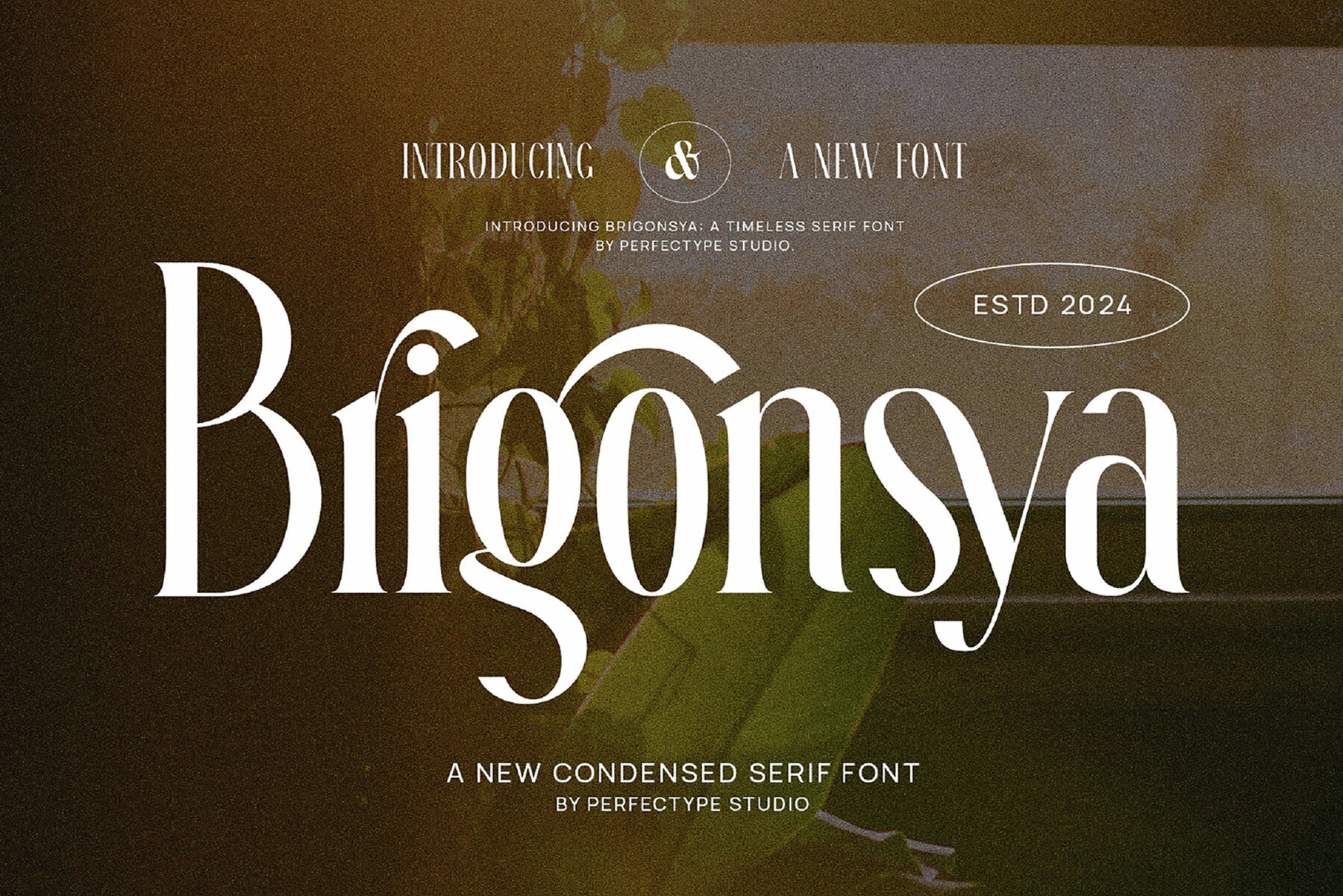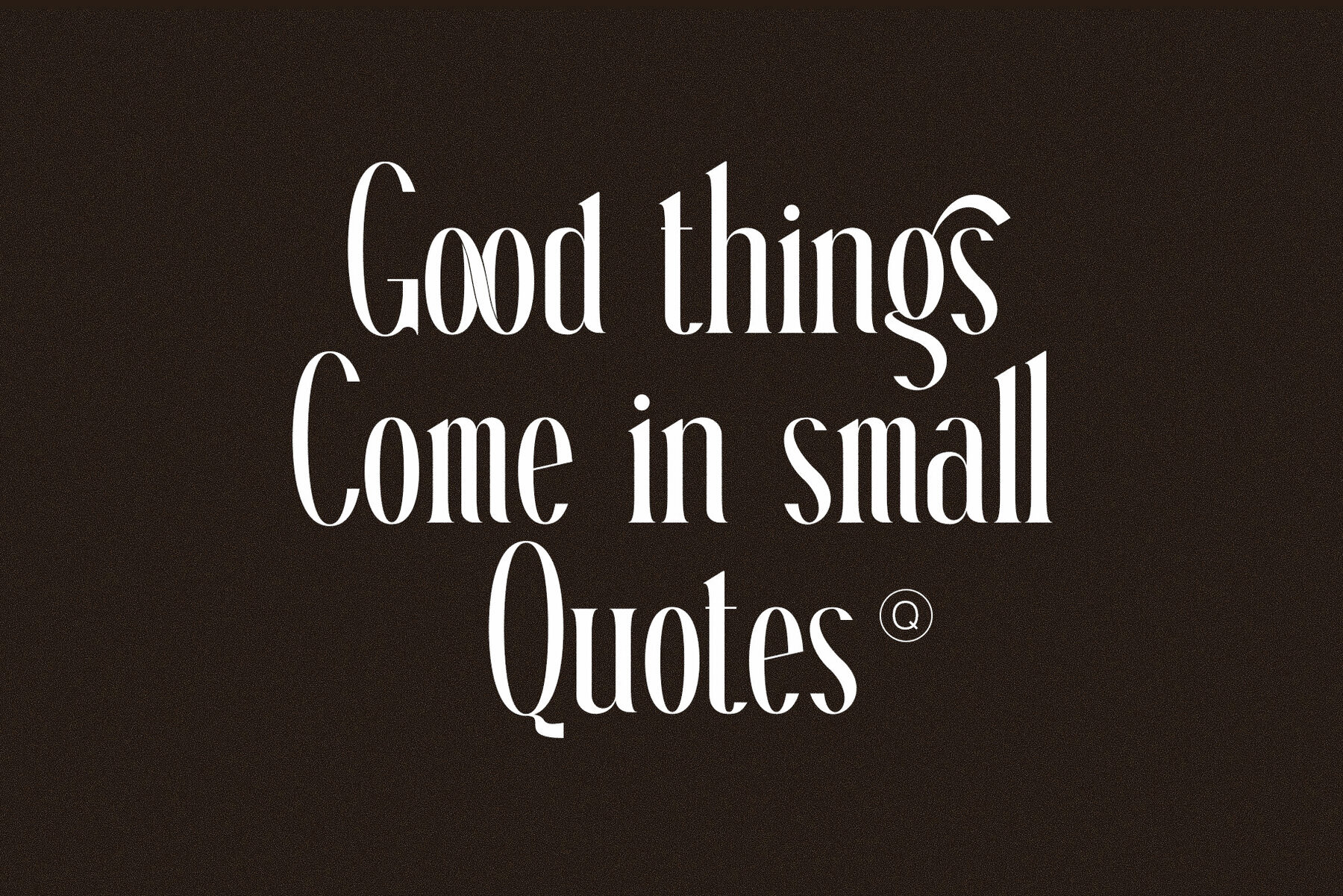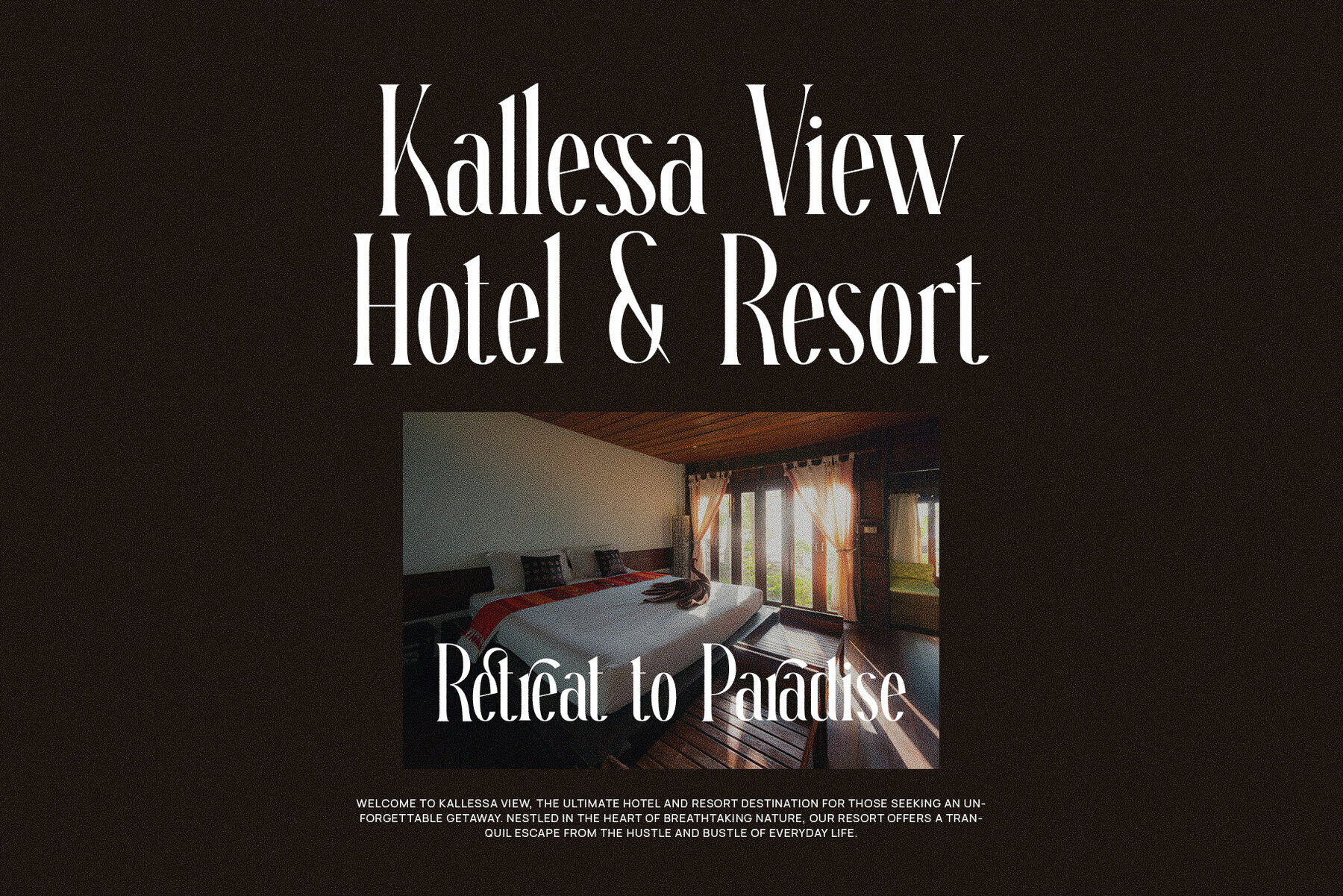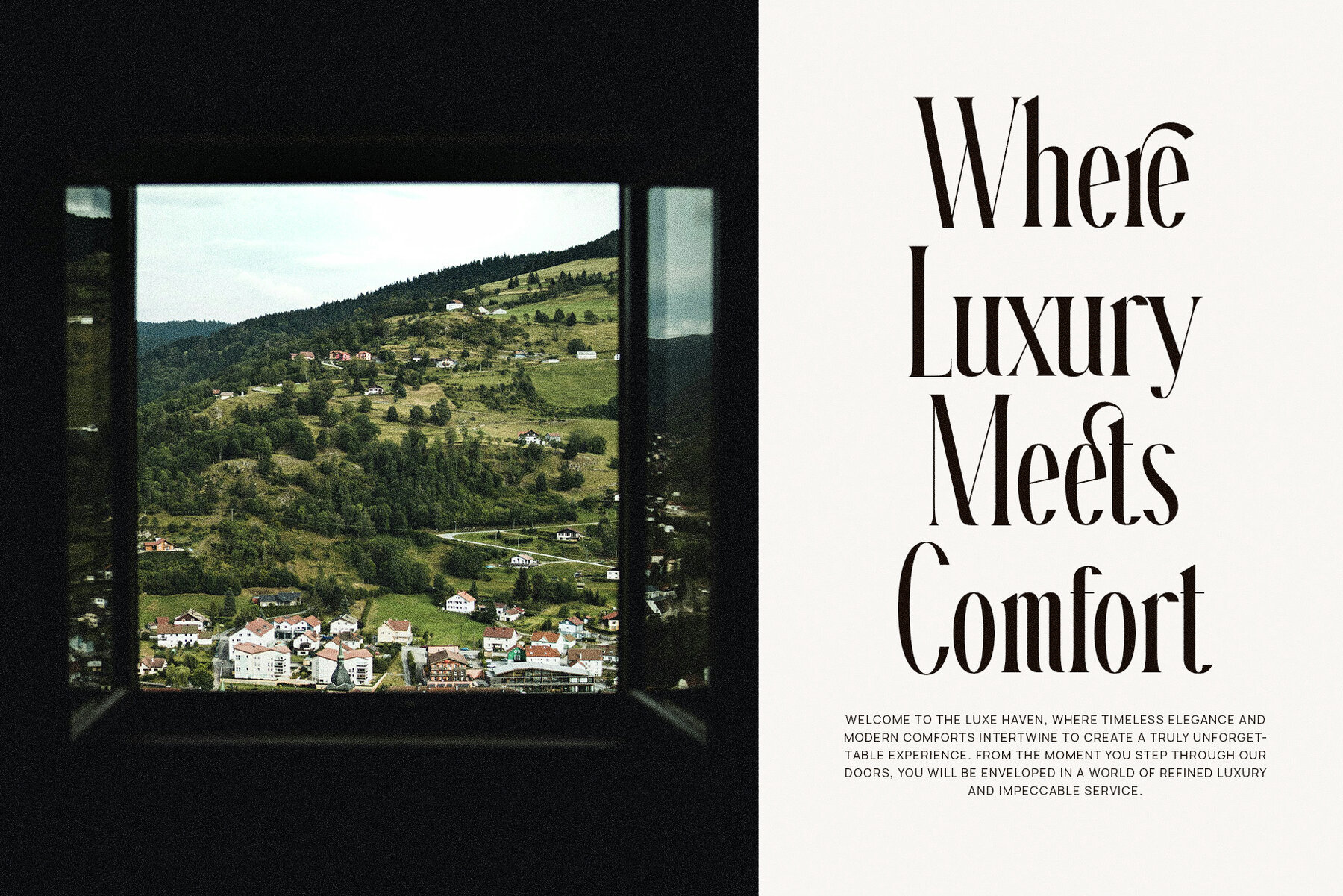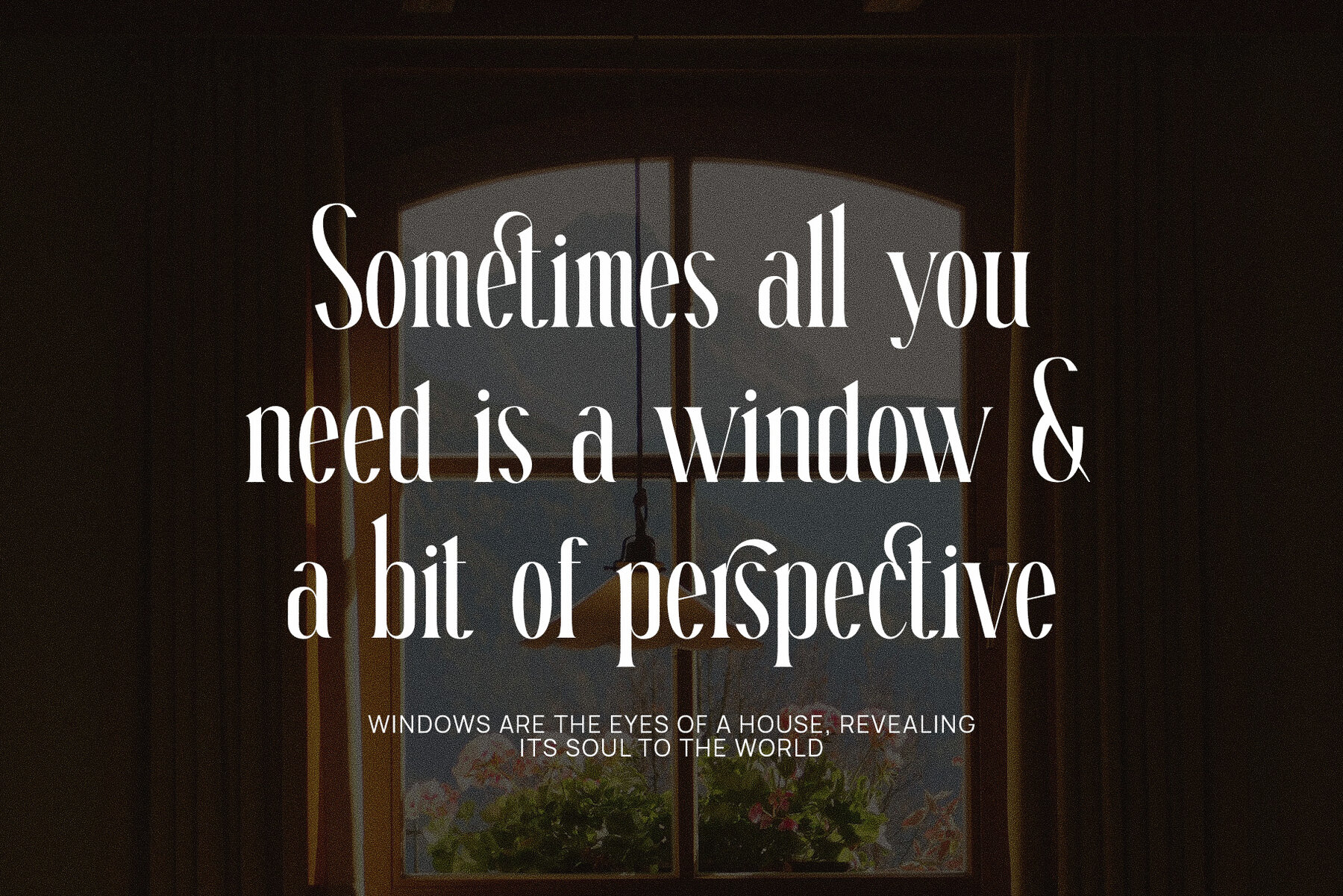
Brigonsya Font
Brigonsya
Brigonsya Elegant Serif Font is a sophisticated and contemporary serif typeface, perfect for imbuing any design with a sense of class and refinement. Featuring beautiful ligatures and carefully crafted alternates, this font offers remarkable versatility for a range of creative projects. Its elegant lines, sharp serifs, and graceful curves create a refined aesthetic that blends modernity with timeless appeal. Ideal for logo design, branding, and advertisements, Brigonsya adds a layer of professionalism and luxury to any project. Whether you're shaping a visual identity for a boutique, high-end product, or luxury service, Brigonsya ensures your brand stands out.
The font’s adaptability also makes it suitable for websites, magazines, product packaging, and invitations, providing a touch of elegance and visual allure. The inclusion of exquisite ligatures and alternates allows for increased customization, enabling designers to craft unique and captivating typographic compositions. Whether used for food packaging, invitation cards, brochures, or digital media, Brigonsya Elegant Serif Font combines style with readability. From luxury branding to event invitations, this font delivers a modern yet classic flair to your designs, making it an essential addition to any designer's toolkit.